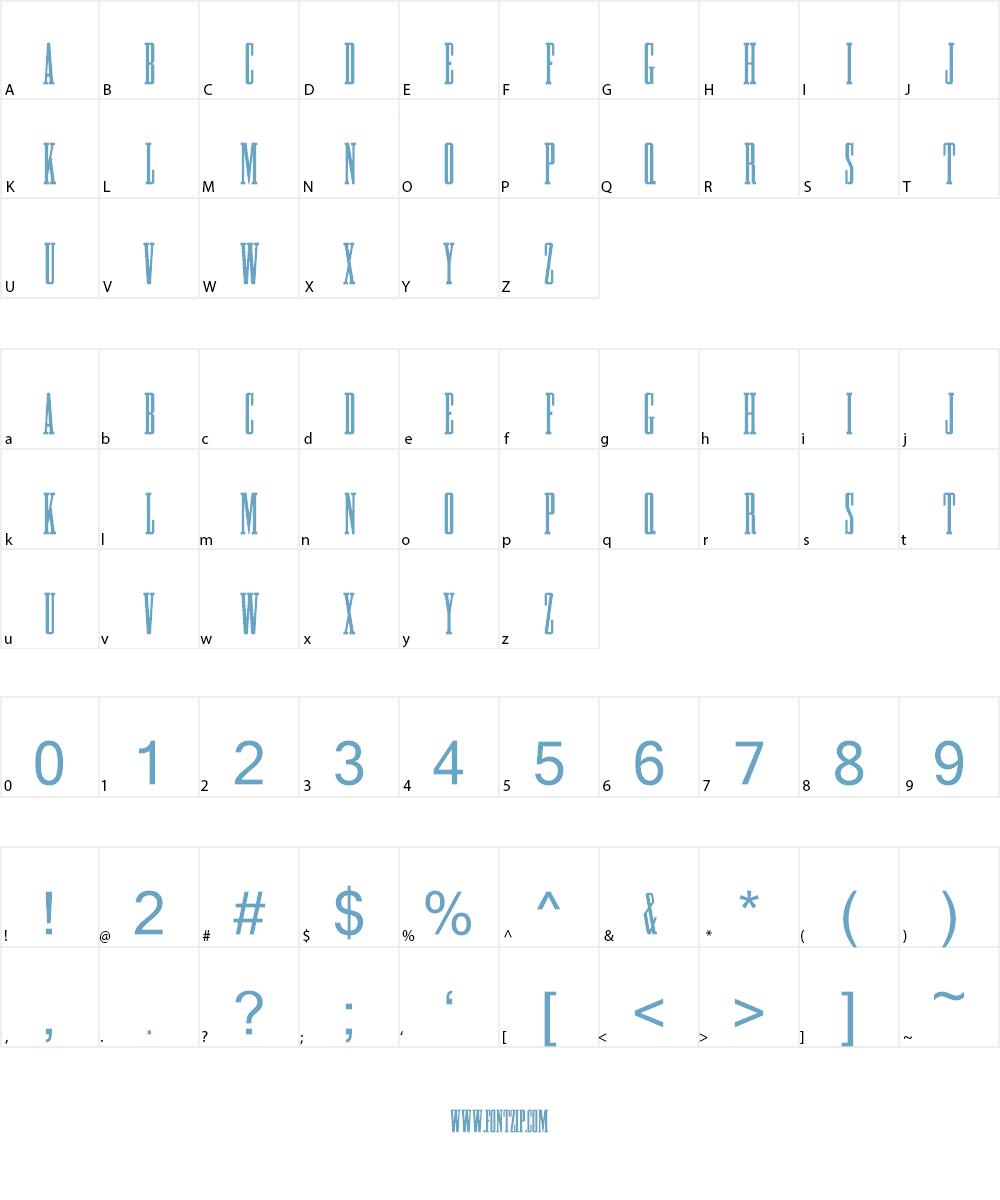
HFF Greek ExCon is based on Grecian Extra Condensed from page 33 of
"Condensed Alphabets: 100 Complete Fonts" by Dan X. Solo. Grecian Extra
Condensed is also seen on page 33 "The Solotype Catalog of 4,147 Display
Typefaces".